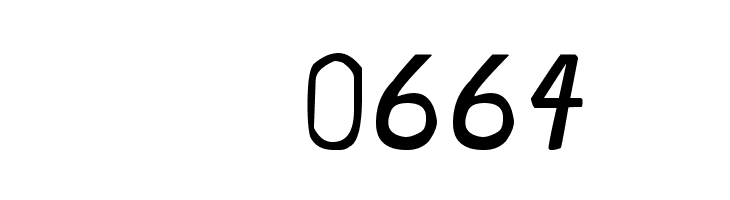
Flick SS 2 Demo Шрифта
- Шрифта: Flick SS 2 Demo
( Fonts by Press Gang Studios - Andeh Pinkard - www.pressgang-studios.com )
A playful, handwritten font with irregular and dynamic letterforms.